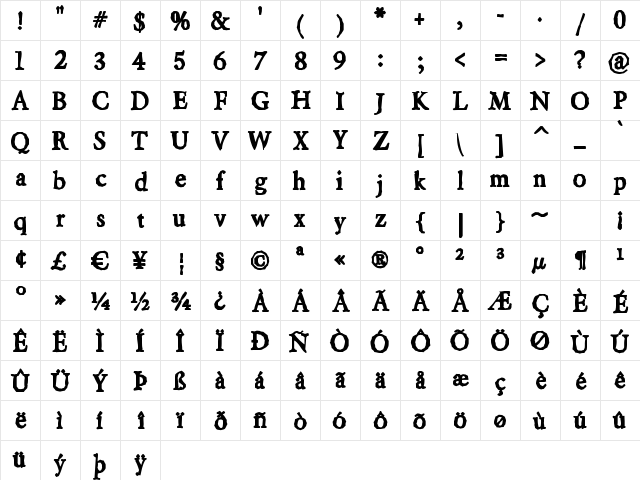
Berylium Ink Regular
Berylium Ink Family
Design Context for Berylium Ink
Berylium Ink is a composed and adaptable typeface that performs quietly and consistently across a wide range of design contexts.